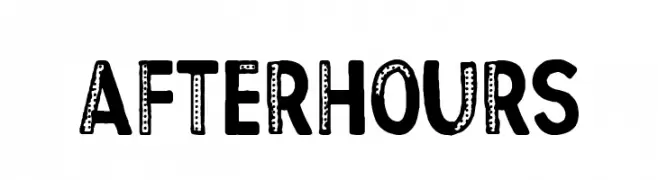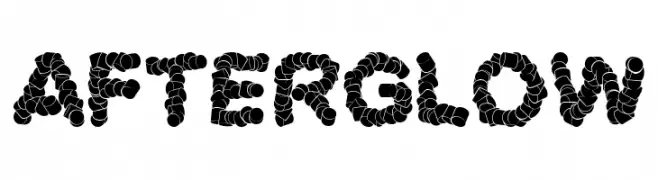
( Fonts by Vidkä© Foundry )
A bold, calligraphic font with sharp, angular strokes and artistic flair.
( Fonts by Mike Wolf )
A bold, geometric font with a three-dimensional, optical illusion style.
( Fonts by Galdino Otten - galdinootten.com )
A whimsical, decorative font with intricate, vine-like embellishments.
( Fonts by Christopher Hansen )
A bold, three-dimensional block font with a modern, geometric style.
A bold, decorative font with a three-dimensional beveled effect and striped pattern.
A bold, decorative font with a beveled, textured design.
( Fonts by www.houseoflime.com )
Hand-drawn dingbat font with bag and container illustrations.
( Fonts by Billy Argel Fonts ® )
A bold, decorative font with palm tree silhouettes for a tropical theme.
A bold, textured font with a playful, hand-painted style.
A playful, artistic font with abstract facial elements in each letter.
A bold, decorative font with rounded shapes and intricate patterns.
A bold, playful font with circular, gear-like embellishments on each character.
A playful, decorative font with hollow, spiral-like elements resembling snail shells.
A bold, decorative font with playful spiral patterns.
A playful, handwritten font with tall, narrow letters and a modern feel.
( Fonts by oliverinlisbon )
An ornate and decorative font with intricate swirls and flourishes.
( Fonts by Alit Design )
An ornate, decorative font with intricate floral patterns on each character.
( Fonts by Maniackers Design - www.mksd.jp OFF SITE )
A playful, bold font with characters enclosed in circles, perfect for fun designs.
( Fonts by Mike Wolf )
A playful, ball-bearing inspired decorative font with bold, rounded characters.
A delicate and flowing script font with elegant curves and a polished look.
An elegant script font with intricate swirls and flowing cursive style.
( Fonts by Darrell Flood )
A playful balloon-themed font with rounded, bubbly characters.